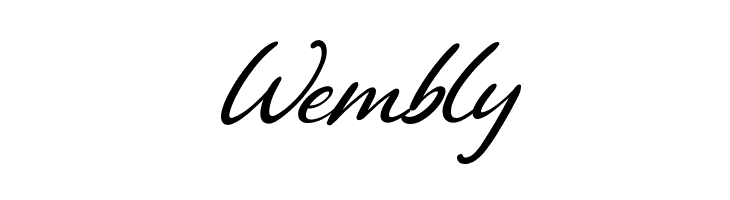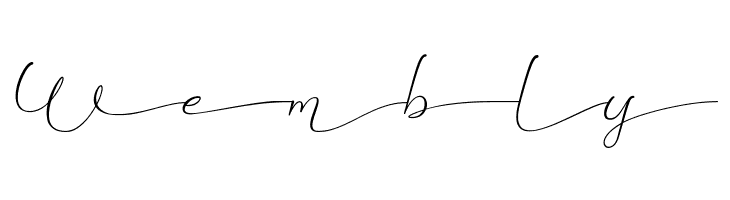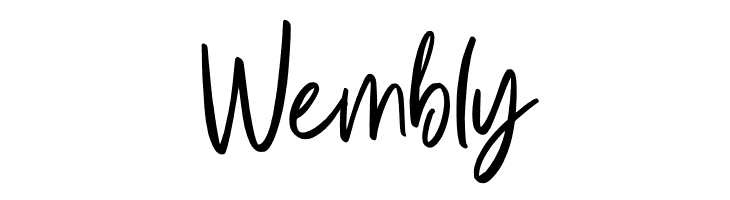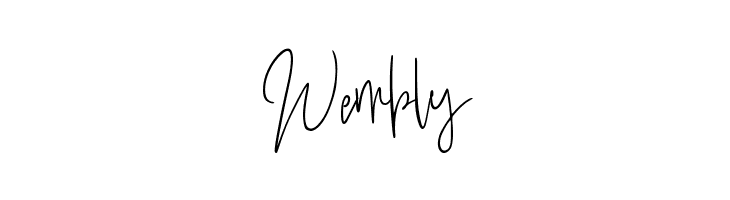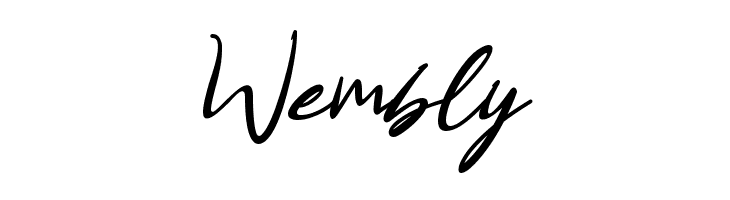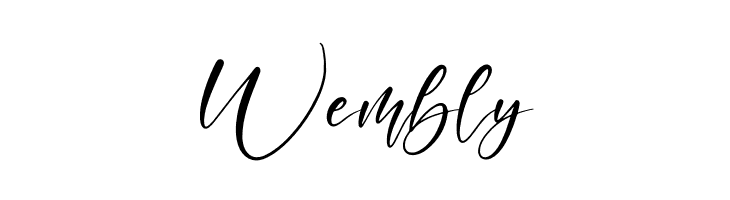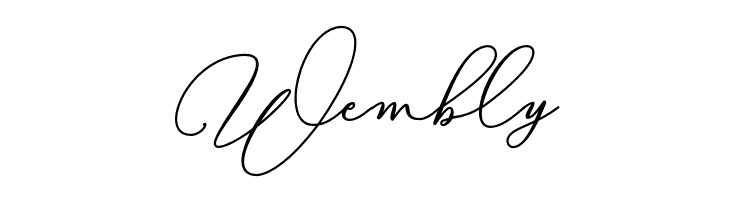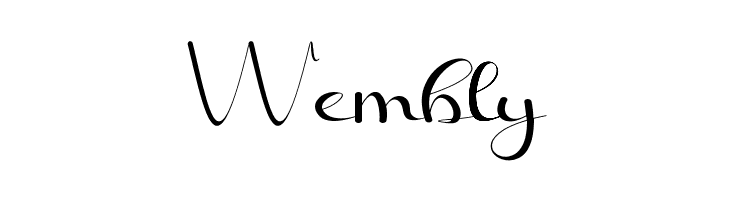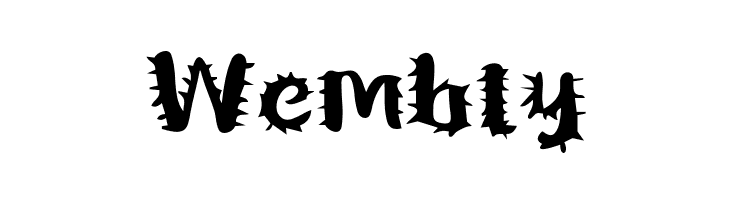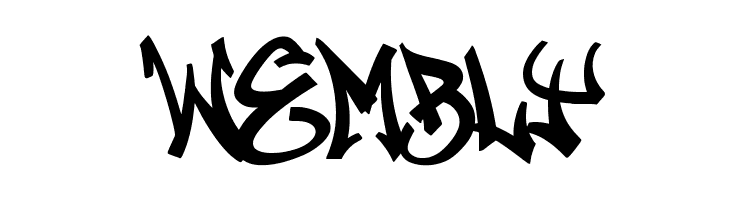
• Bellia Maddison Personal Use On
A lively, handwritten font with fluid, flowing letterforms and a playful, casual appearance.
• Bellisia
An elegant script font with fluid, connected strokes and a natural handwriting style.
• Bellomatch Personal Use
A lively, handwritten font with expressive strokes and playful character.
• Ben Kidoz
Playful, rounded handwritten font.
• Bencoleng
A playful, handwritten font with dynamic strokes and a whimsical style.
• Bensch Gothic
• Bensch Gothic Flames
• Berduri
A bold, thorny font with a dramatic and edgy style.
• Berllina
An elegant and sophisticated cursive font with ornate uppercase and smooth lowercase letters.
• bestalia
A cursive, handwritten font with elegant, flowing strokes and dynamic contrast.
• Bestowens family
A fluid, cursive font with a handwritten style and elegant connections.
• Better Tomorrow Italic
A dynamic, cursive font with a fluid, handwritten style.
• Betti
An elegant, cursive script font with flowing, interconnected letters.
• Bettrish
A delicate, flowing script font with an elegant, handwritten style.
• Bidan
A bold, geometric font with strong, angular lines and a blocky appearance.
• Bidan Bold
A bold, geometric font with strong, angular lines and a blocky appearance.
• Bidan Bold Italic
A bold, italicized font with sharp, angular characters and a dynamic style.
• Bidan Italic